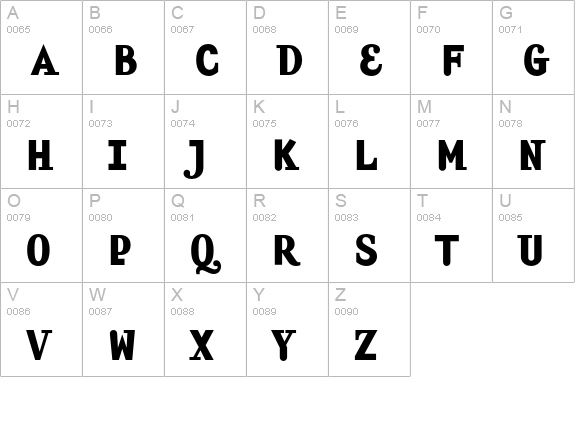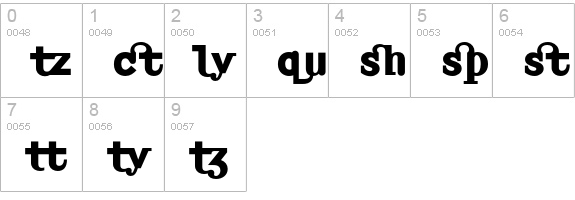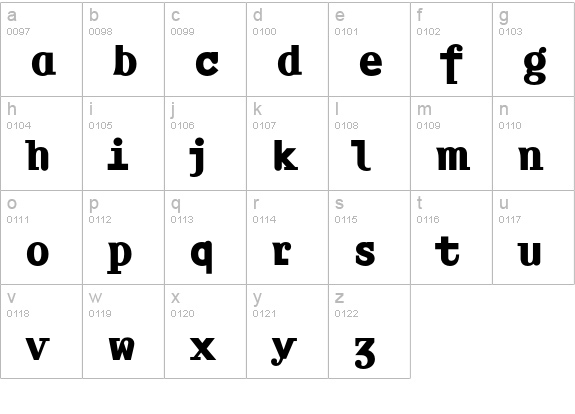
AmplifierBoldLigatures Font Details
AmplifierBoldLigatures font is a bold and eye-catching typeface that exudes modernity and sophistication. Its unique ligatures add a touch of elegance to any text, making it perfect for headlines, logos, and branding projects. With its strong presence and sleek design, AmplifierBoldLigatures commands attention and leaves a lasting impression. Best of all, this stunning font is available for free download at FontsMarket.com. Whether you're a designer looking to elevate your projects or a business in need of a fresh and impactful font, AmplifierBoldLigatures is the perfect choice. Download it today and make your designs stand out from the crowd.